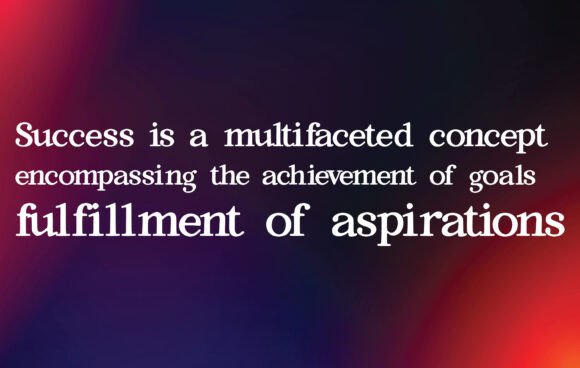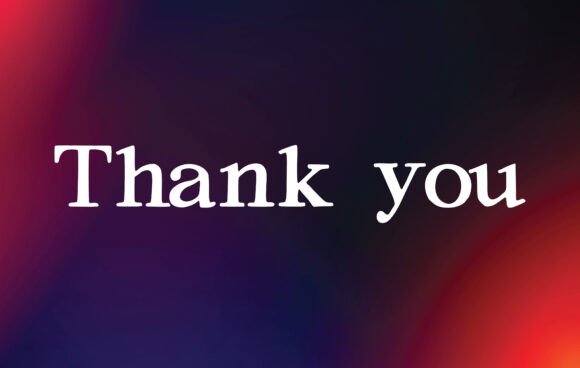
Athalia Font: The Ultimate Design Companion for Creative Minds
In the world of design, a font can make all the difference. It’s the foundation upon which your creative ideas are built, and it can elevate your project from ordinary to extraordinary. If you’re a designer, crafter, or simply someone who loves to dabble in creative projects, you’re in luck. Introducing Athalia Font, a versatile and eye-catching typeface designed to bring your imagination to life.
What Makes Athalia Font Special?
Athalia Font is crafted with the modern designer in mind. Its clear and easy-to-read design makes it perfect for a wide range of applications, from titles and headings to body text. This font is not just about aesthetics; it’s also incredibly functional. Whether you’re working on a magazine cover, a t-shirt design, social media post, branding materials, wedding invitations, or greeting cards, Athalia Font fits seamlessly into any project, adding a touch of style and personality.
One of the standout features of Athalia Font is its versatility. In today’s fast-paced digital age, designers need fonts that can adapt to various mediums and contexts. Athalia Font rises to the challenge, effortlessly transitioning from digital platforms to print materials. Its adaptability makes it an excellent choice for:
• Magazine Covers: Grab attention with bold and stylish headings.
• T-Shirt Designs: Create trendy and memorable apparel.
• Social Media Posts: Elevate your content with professional and engaging typography.
• Branding: Establish a consistent and recognizable visual identity.
• Wedding Invitations: Add a touch of elegance and sophistication.
• Greeting Cards: Convey your message with style and warmth.
Why Choose Athalia Font?
With so many fonts available, why should Athalia Font be your go-to choice? Here are a few compelling reasons:
• Readability: Its clear design ensures that your message is conveyed effectively, whether it’s in a title or body text.
• Elegance: Athalia Font brings a level of sophistication and style to your projects.
• Versatility: Use it across various mediums and applications without compromising on quality or style.
• Uniqueness: Stand out from the crowd with a font that’s both stylish and distinctive.
Tips for Using Athalia Font
To get the most out of Athalia Font, consider the following tips:
• Mix and Match: Combine Athalia Font with other fonts to create visual interest and hierarchy.
• Play with Sizes: Use different font sizes to emphasize certain elements and guide the viewer’s eye.
• Experiment with Colors: Don’t be afraid to try out different colors to match your brand or project’s aesthetic.
Athalia Font is more than just a typeface; it’s a design companion that’s ready to help you bring your creative ideas to life. Its versatility, readability, and stylish design make it an excellent choice for designers and crafters alike. Whether you’re working on a professional project or a personal passion project, Athalia Font is sure to become your new favorite. So why wait? Dive into the world of creative possibilities with Athalia Font and see where your imagination takes you.